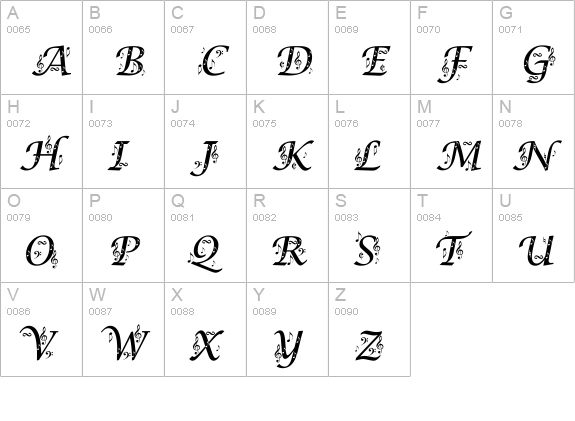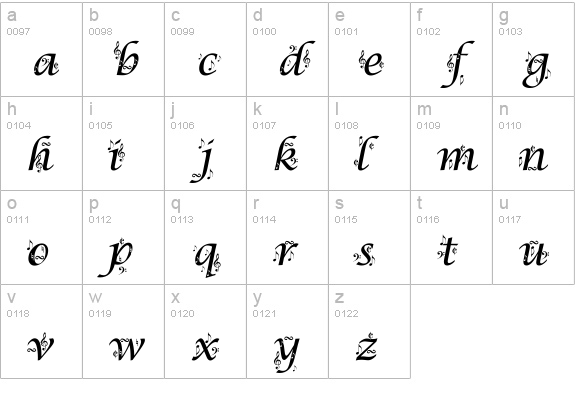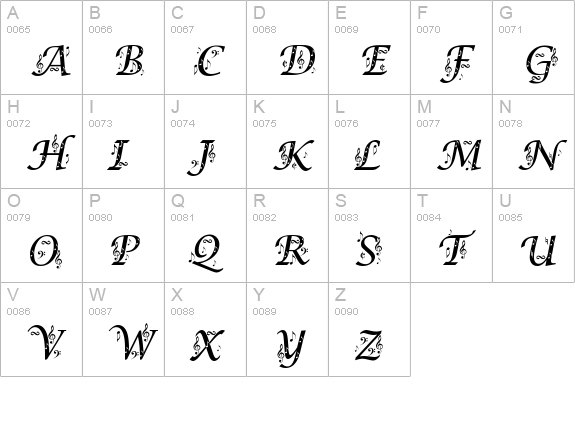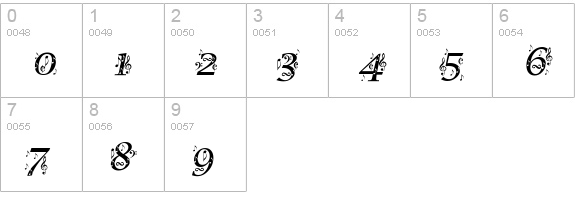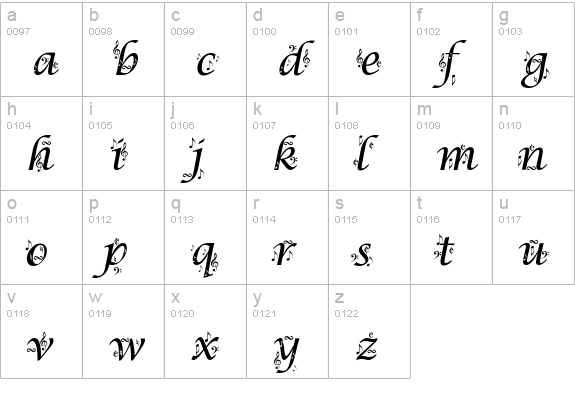
Symphony in ABC Font Details
Symphony in ABC font is a harmonious blend of elegance and creativity, designed to elevate your design projects to new heights. With its intricate details and graceful curves, this font exudes a sense of sophistication and charm. Each letter is meticulously crafted to create a seamless flow, like a beautiful symphony playing on paper. The best part? Symphony in ABC font is available for free download at FontsMarket.com! Now you can add a touch of class to your designs without breaking the bank. Whether you're creating invitations, posters, or branding materials, this font will surely make a lasting impression. Don't miss out on this amazing opportunity to enhance your creativity with Symphony in ABC font. Download it today and let your designs sing!